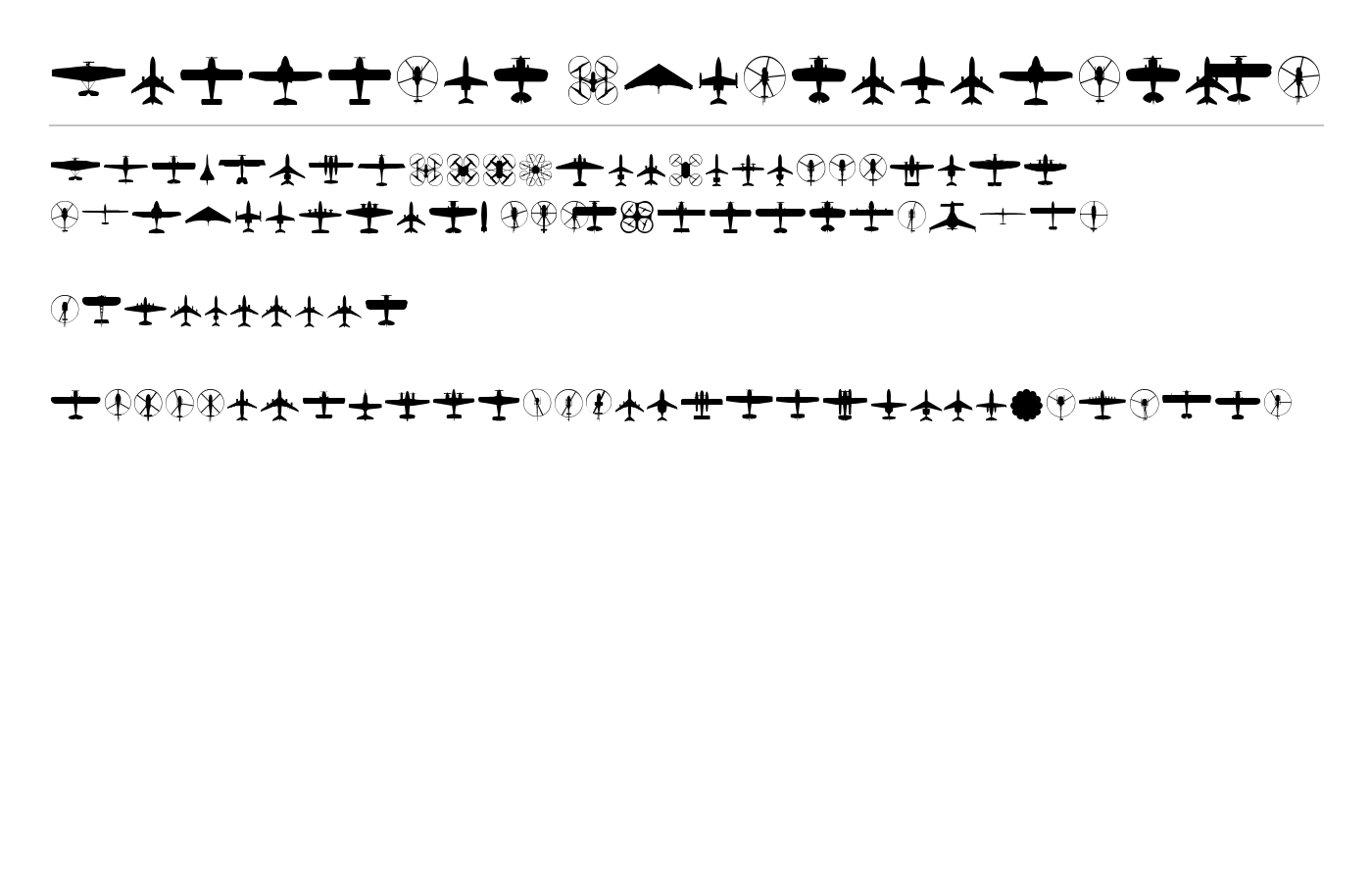
The Aircraft Identification Font is a specialized symbol font featuring detailed silhouettes of various aircraft viewed from above. It is highly visual and practical for aviation-related design, mapping, or educational projects, offering clear, recognizable shapes rather than traditional alphabetic characters. This font works best for niche uses like infographics, presentations, or themed graphics where conveying aircraft types visually is essential.
Aircraft Identification Font